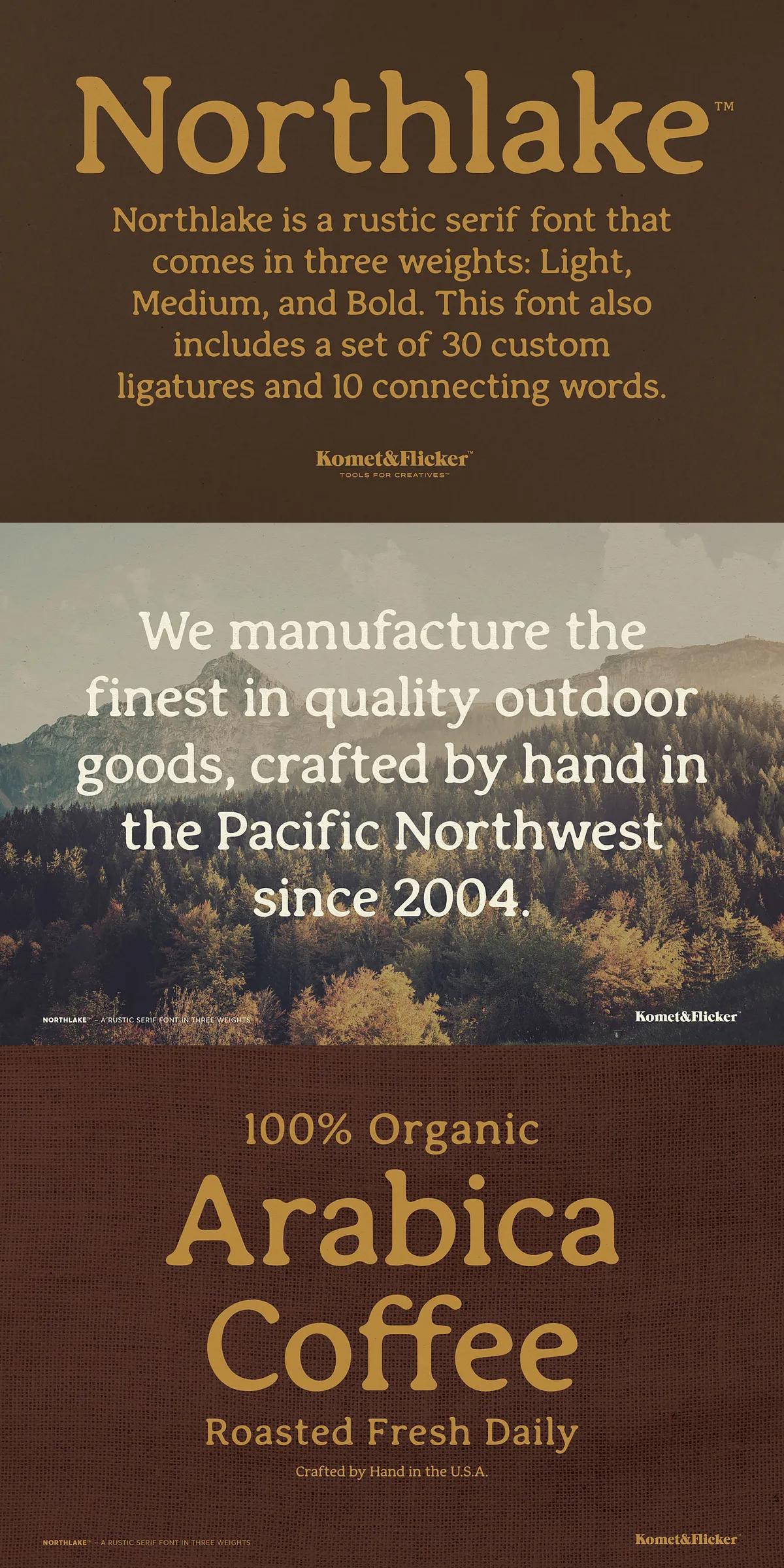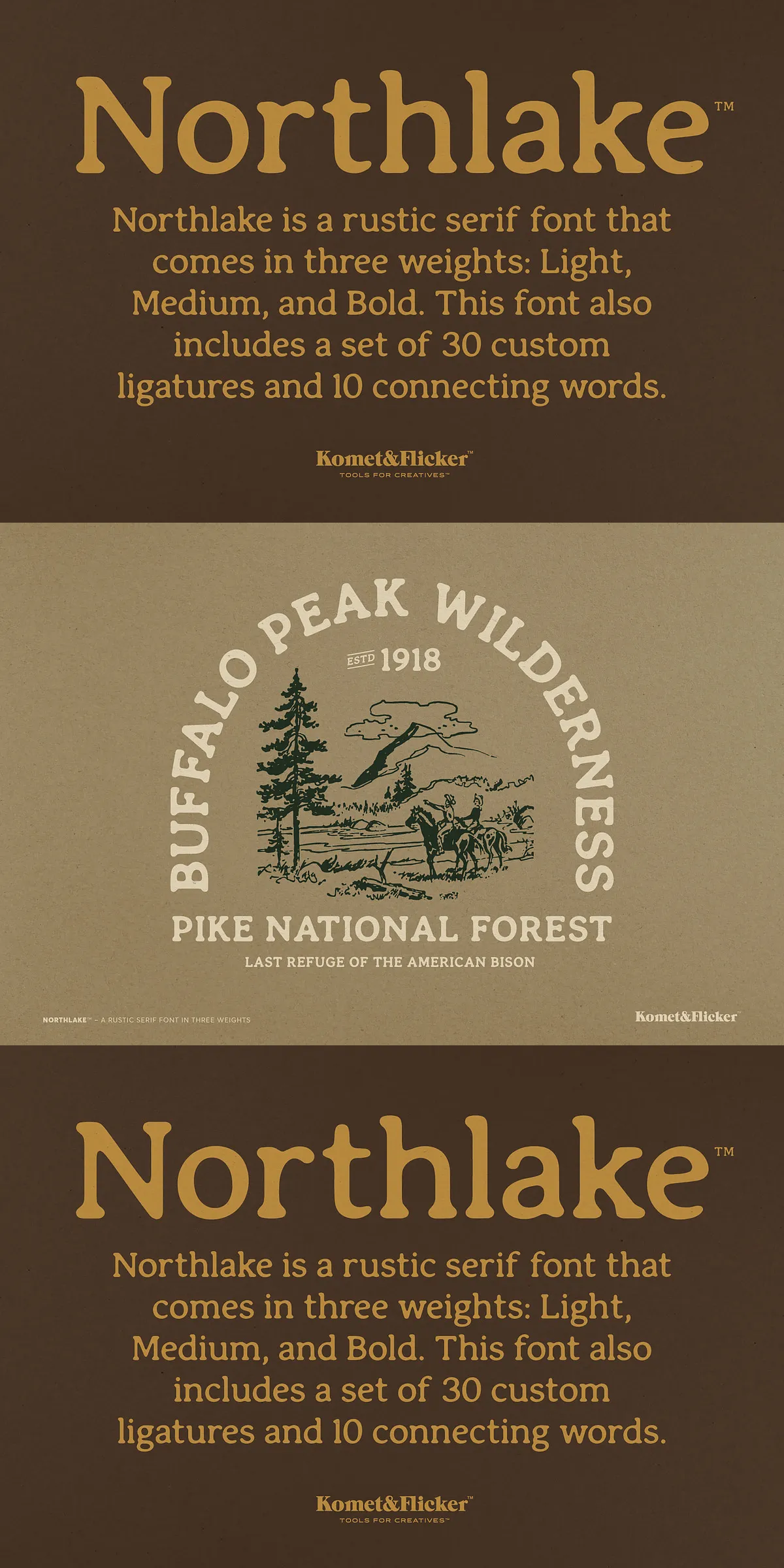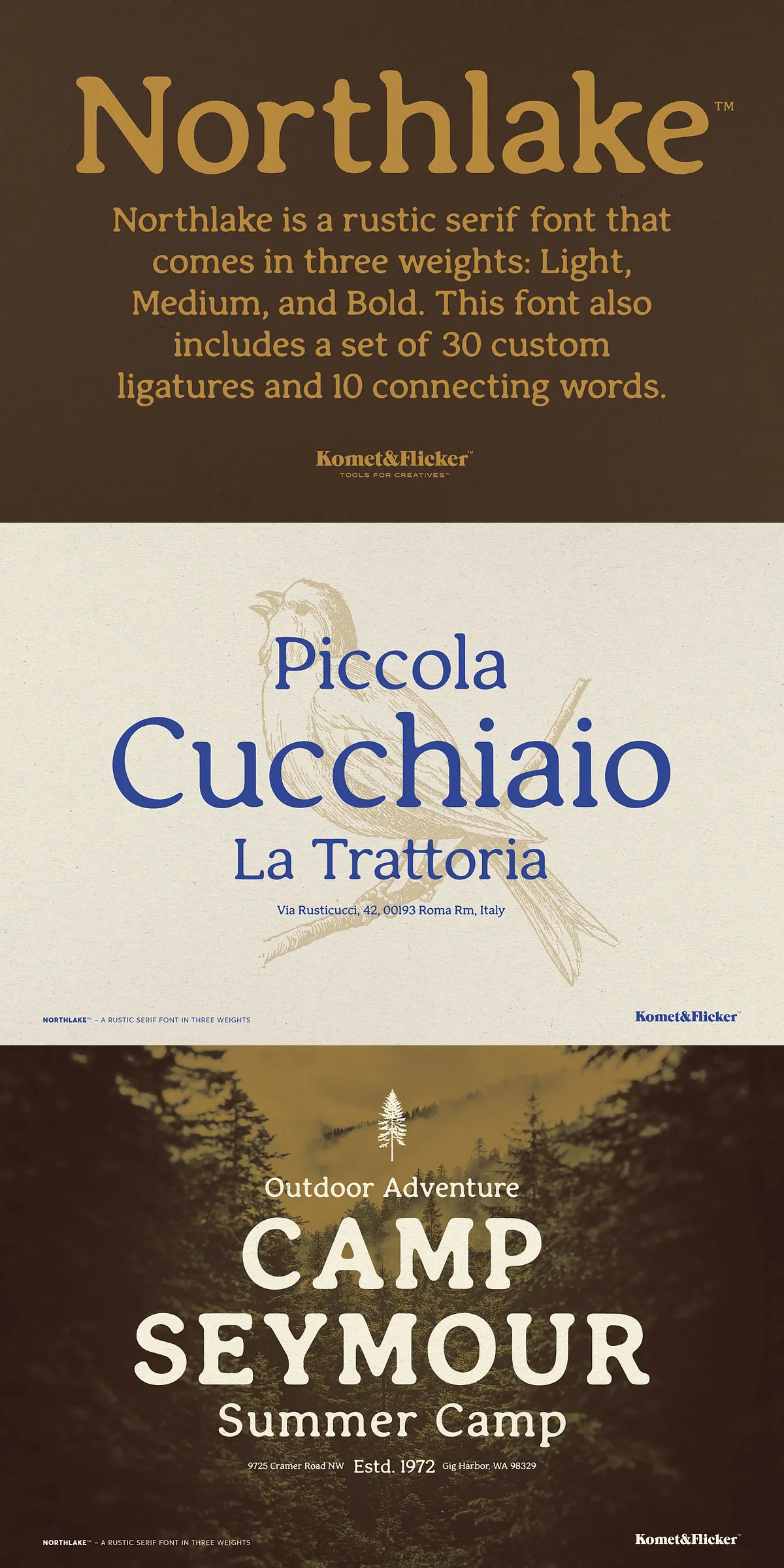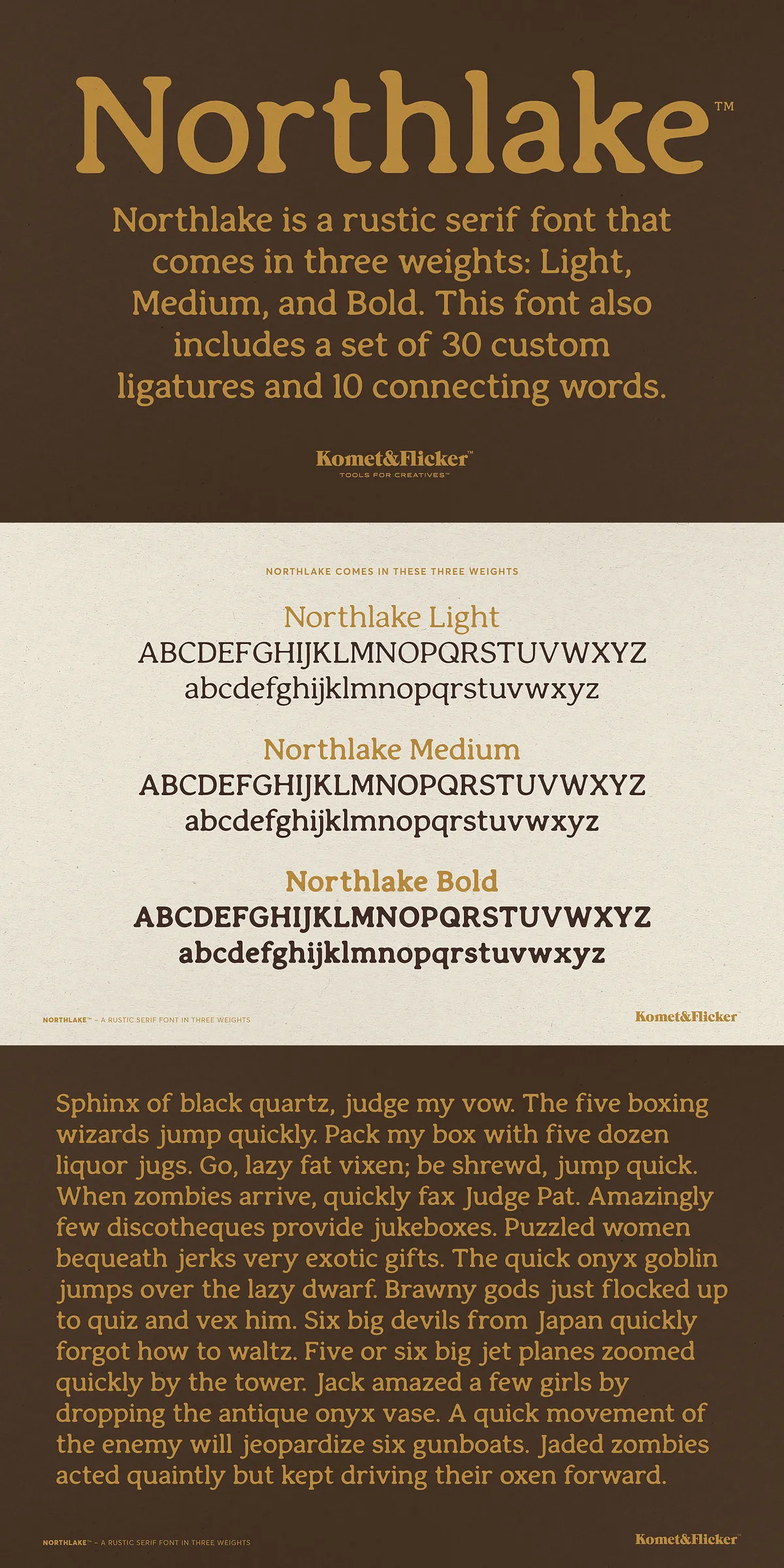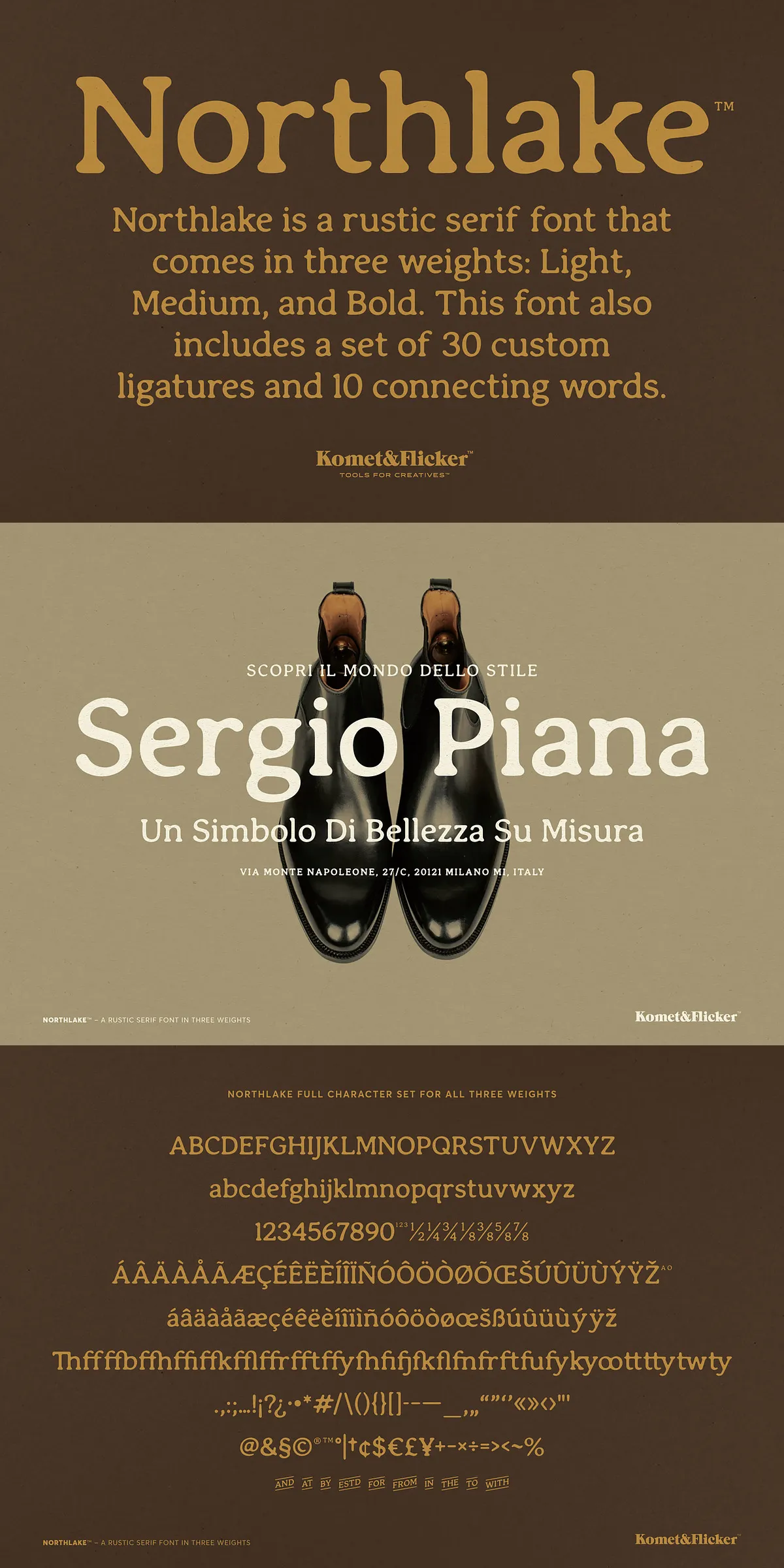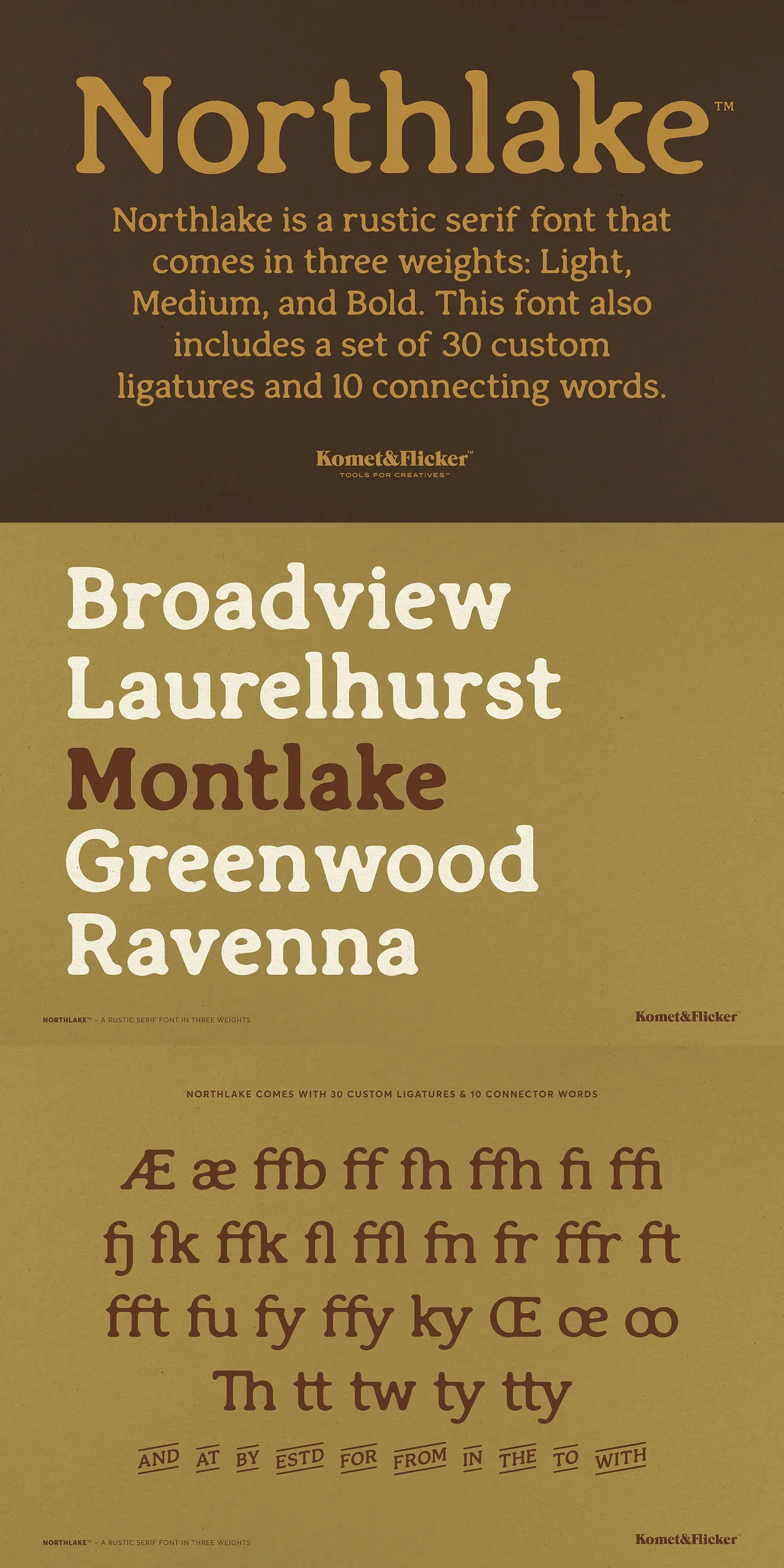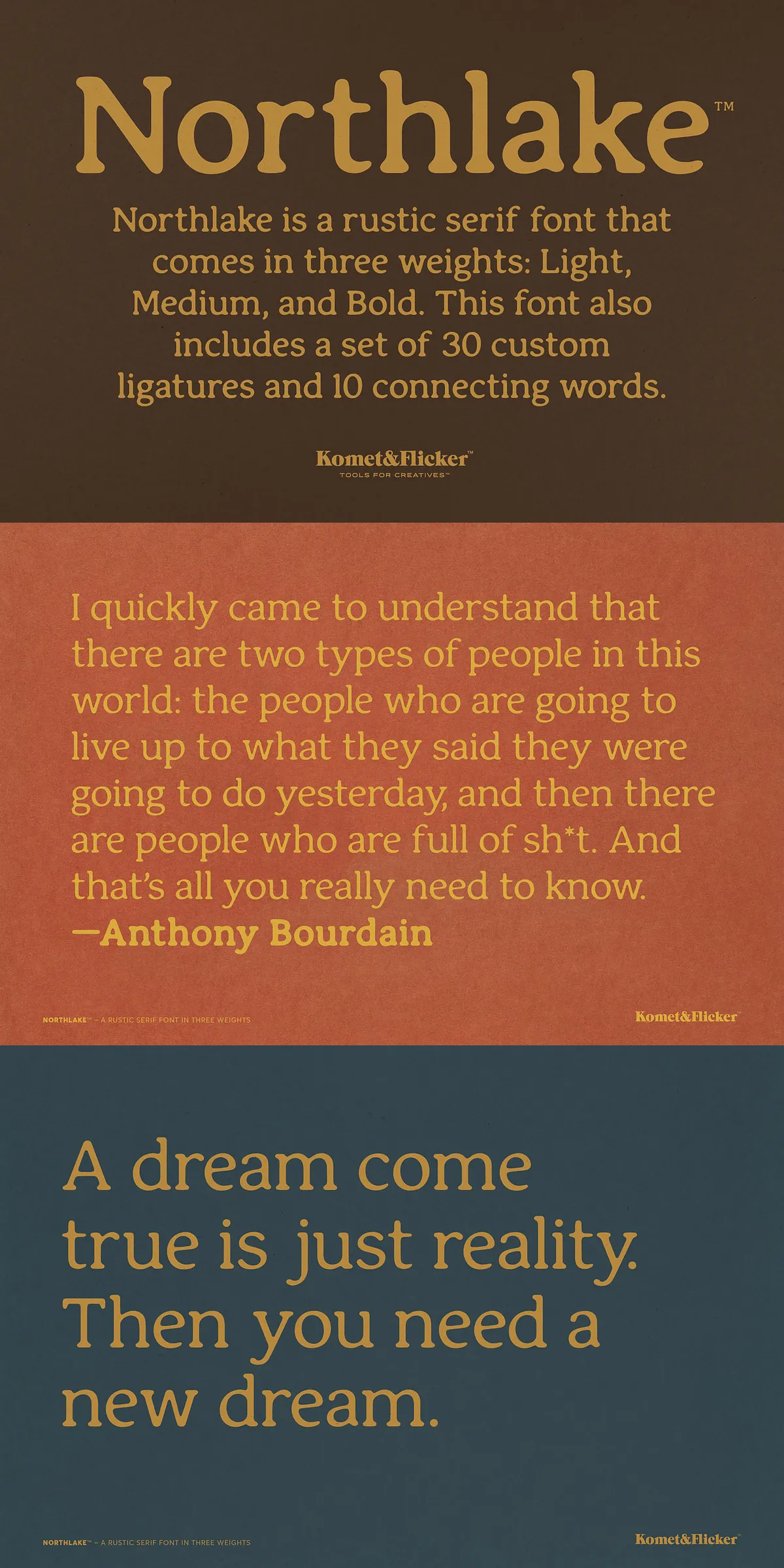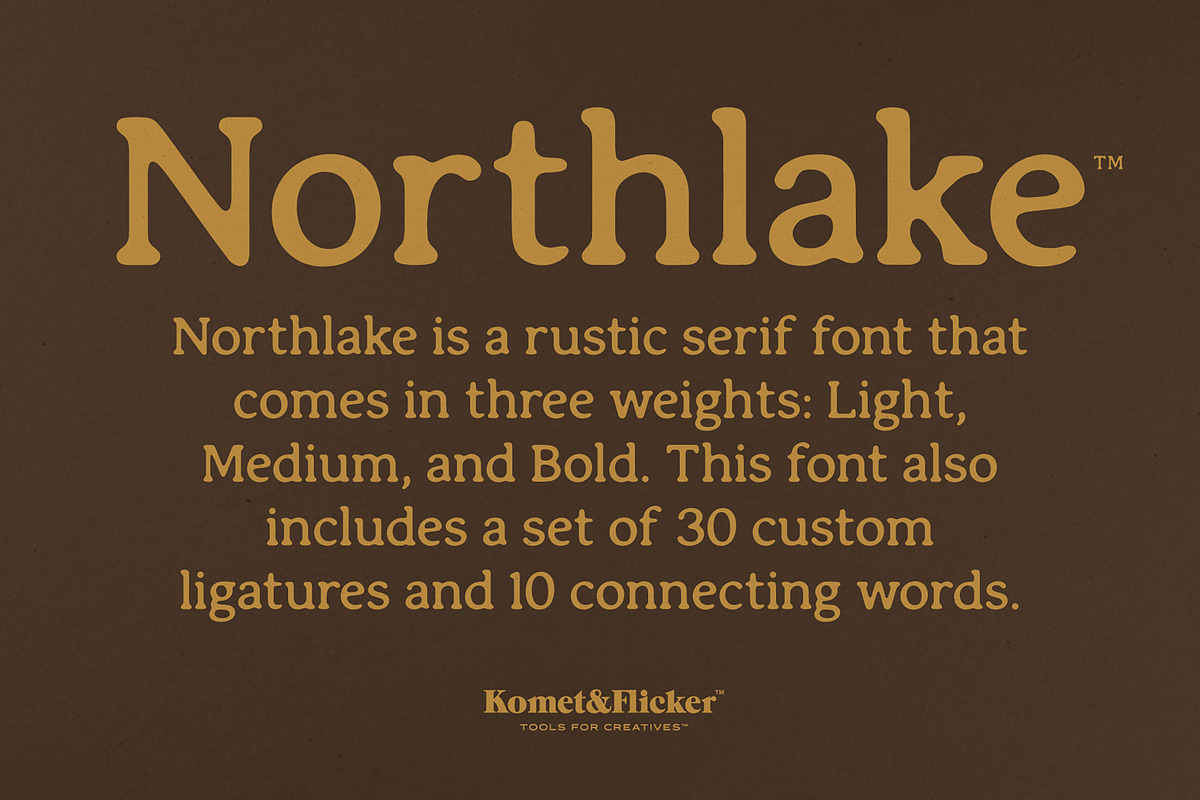
Northlake – A Rustic Serif Font
Step into the world of authentic design with Northlake, a rustic serif typeface that effortlessly blends the warmth of a well-loved classic with the precision of modern typography. Designed for creators who value soulful details and bold visual presence, Northlake isn’t just a font — it’s a narrative. Whether you’re crafting powerful headlines or shaping extended blocks of body text, this versatile typeface brings personality, harmony, and a grounded sense of tradition to every project.
Warmth in Every Curve — A Font with Heart and History
Northlake radiates authenticity. Its smooth, gently rounded edges evoke the softness of hand-forged metal, weathered wood, and old-world craftsmanship. The deliberate curves give each character a welcoming, human touch — like a story whispered through time. At the same time, its sturdy serifs deliver strength and permanence, anchoring your design with visual confidence. This duality — softness meets strength — makes Northlake uniquely suited for designs that want to feel both inviting and enduring.
Three Weights, Infinite Possibilities
Choose your tone with precision. Northlake is available in three thoughtfully crafted weights:
• 🔍 Northlake Light — Subtle elegance for delicate headlines and refined text
• ⚖️ Northlake Regular — Perfect balance for body copy and versatile branding
• ⚡ Northlake Bold — Power and presence for dominant headlines and impactful statements
With these weights, you can build a cohesive typographic hierarchy that guides the reader’s eye with purpose, clarity, and style — all within a unified, cohesive system.
Elevate Your Typographic Flow with 30 Custom Ligatures
Northlake isn’t just about individual letters — it’s about rhythm, flow, and visual harmony. That’s why it includes a set of 30 custom ligatures specifically designed to enhance the natural connection between characters. These expertly crafted ligatures eliminate awkward gaps and create seamless transitions, giving your typography a fluid, organic feel — like ink flowing on paper.
10 Connecting Words for Smoother, More Natural Text
Even more uniquely, Northlake includes a curated set of 10 connecting words, such as and, the, with, over, and under. These are not just replacements — they are intentional design refinements. Each word is reimagined with custom ligatures that integrate seamlessly into the overall flow. Use them to eliminate visual breaks in your text, resulting in a more readable, professional, and immersive reading experience.
Comprehensive Character Support
Whether you’re working on a local brand or an international campaign, Northlake delivers with:
• ✅ Full uppercase and lowercase A–Z basic Latin characters
• ✅ Selected European-specific characters (e.g., é, ç, ñ, ü)
• ✅ Complete set of numerals (0–9), punctuation marks (.,;,!?), and essential symbols
This ensures that your design remains consistent and professional across languages and contexts.
Perfect for Branding, Editorial, and Vintage-Inspired Projects
Northlake thrives where authenticity and design depth matter. Use it to:
• ✨ Build a strong brand identity with heritage-inspired typography
• 📘 Create editorial layouts that feel timeless, not dated
• 🏞️ Design packaging and labels with a handmade, artisanal touch
• 📜 Craft invitations, magazines, or lookbooks with soulful elegance
It speaks to audiences who appreciate craftsmanship, history, and the quiet power of thoughtful design.
Unlock Your Creative Potential with Northlake — Where Tradition Meets Modern Design
Northlake isn’t just a font — it’s a design partner. It’s for brands that want to stand out with warmth, for creators who value flow and detail, and for projects that demand both beauty and function.